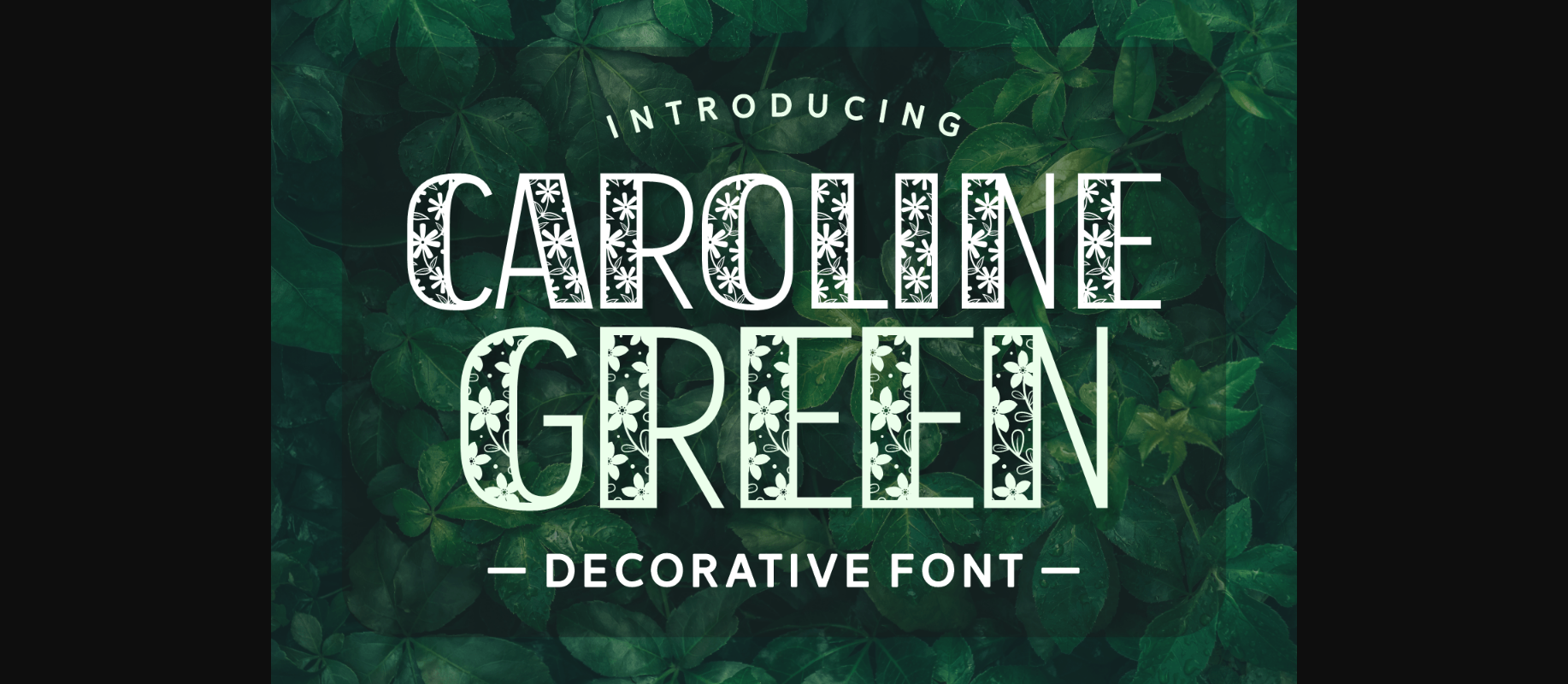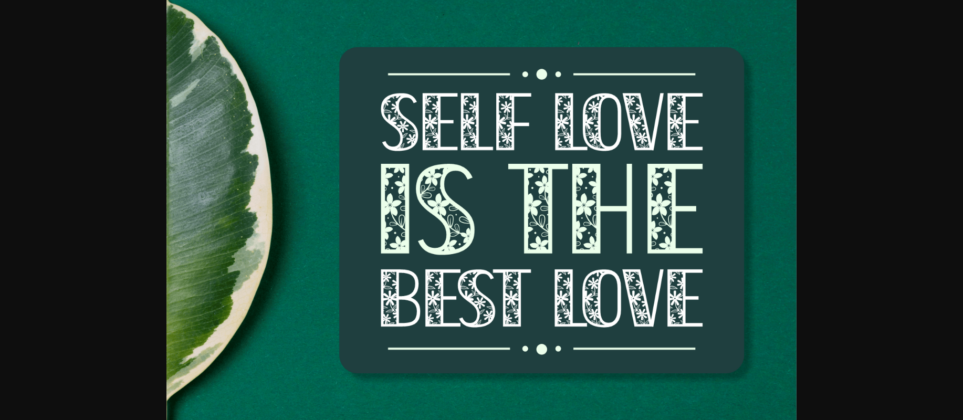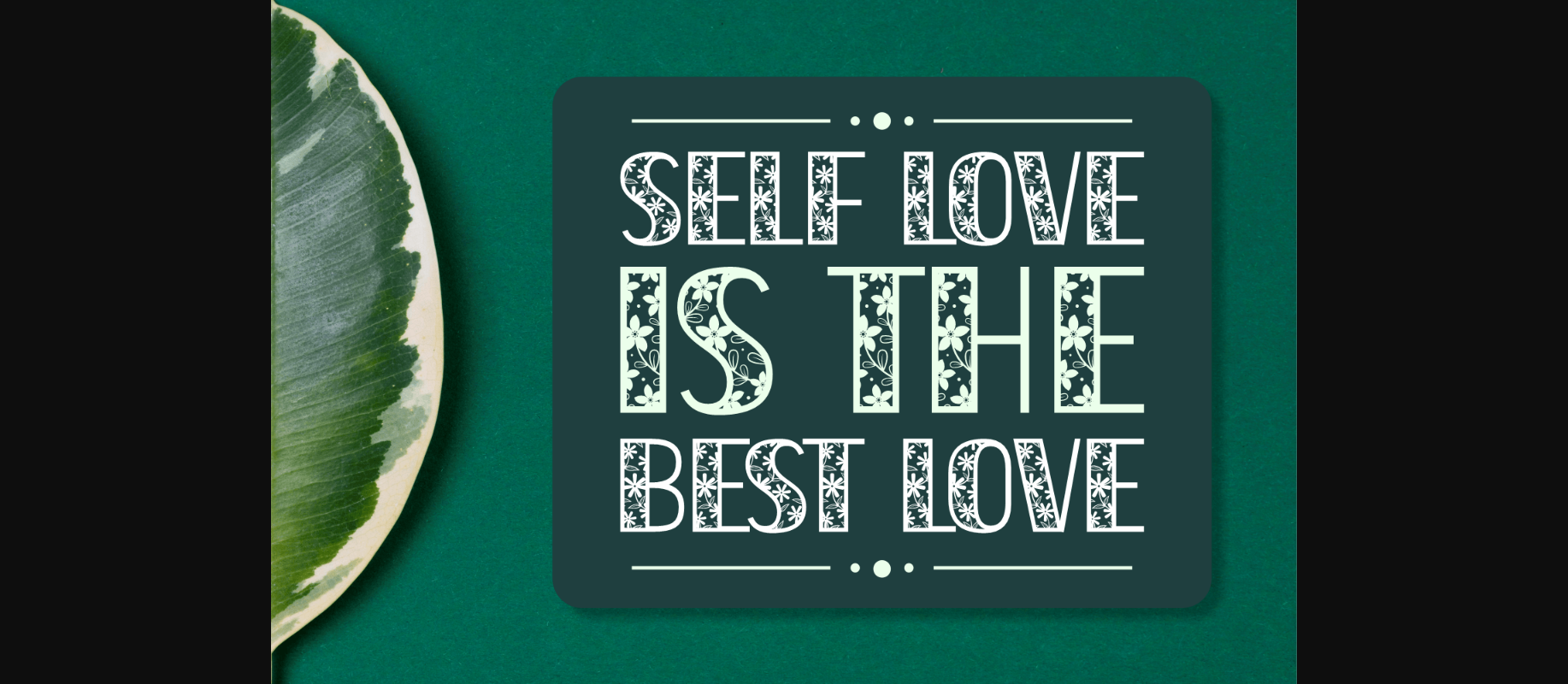
About Caroline Green Font
Caroline Green is a sweet and beautiful flower-inspired decorative font. The mesmerizing flower patterned letters make it the perfect candidate for your next design project such as wedding invitations, thank you cards, quotes, greeting cards, logos, business cards, and any other design that needs an elegant touch.